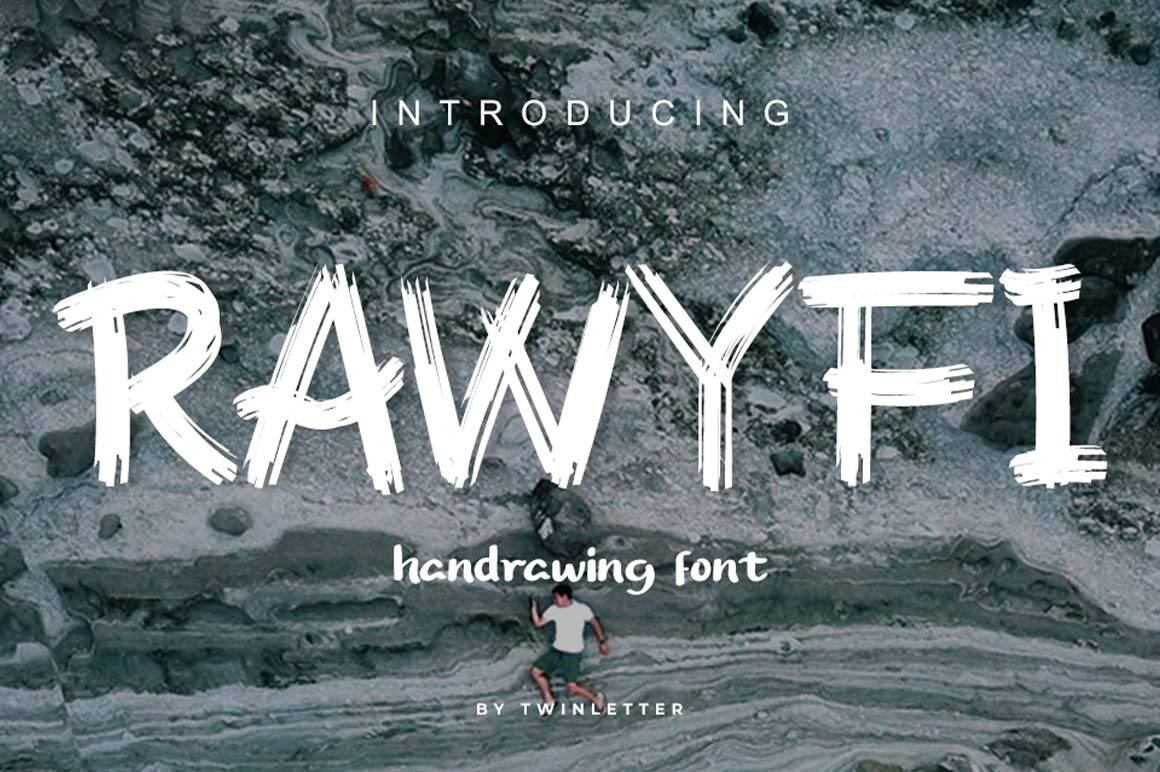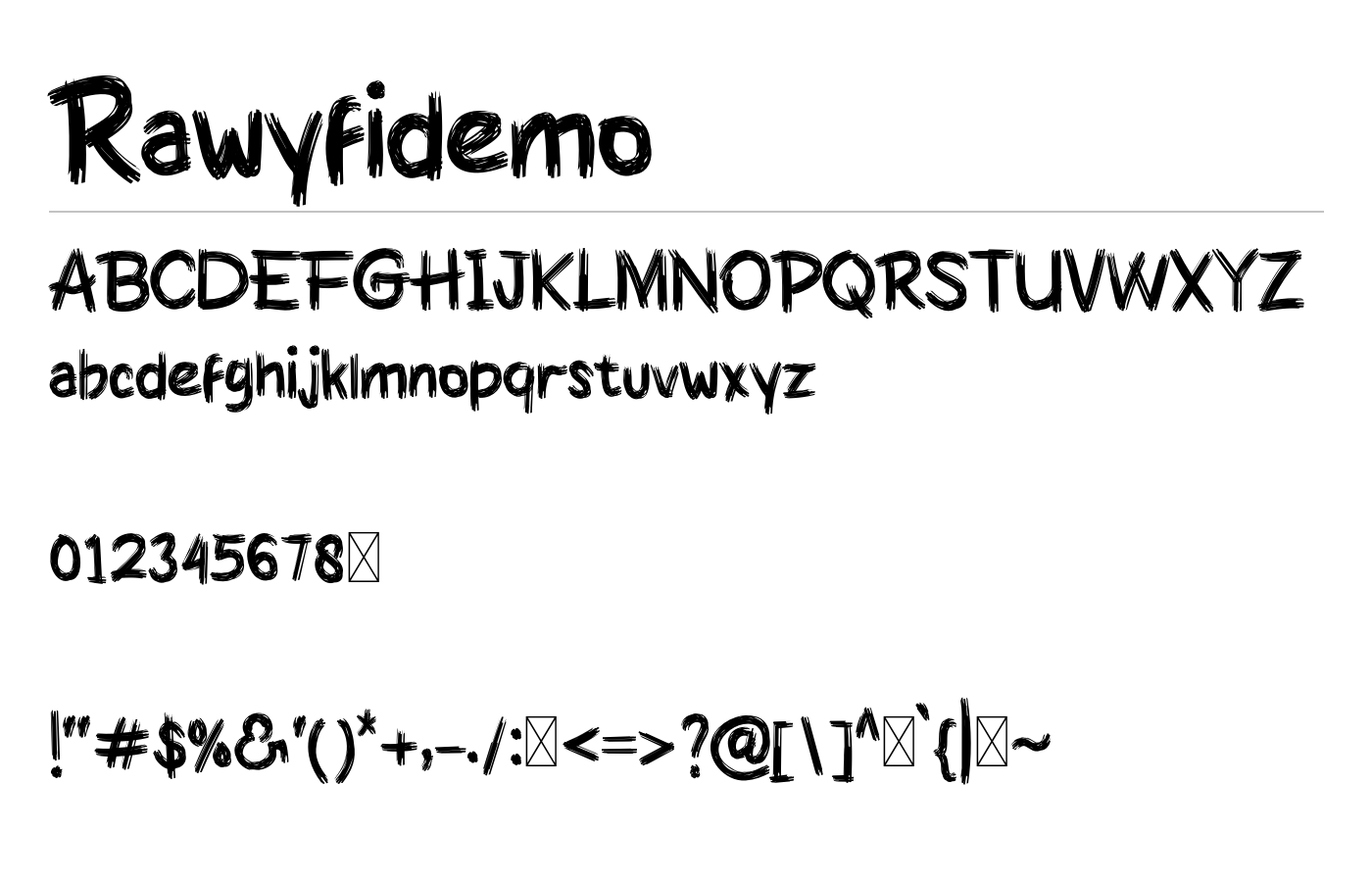
Rawyfi is a playful, hand-drawn sans serif font characterized by its rough, textured strokes that mimic brush or marker marks. Its bold, irregular letterforms and lively style make it perfect for creative, informal designs such as posters, children’s books, or casual branding where a fun and energetic vibe is desired. This font stands out with its unique, artistic feel, adding personality and warmth to any project.
Rawyfi Font
About Rawyfi Font